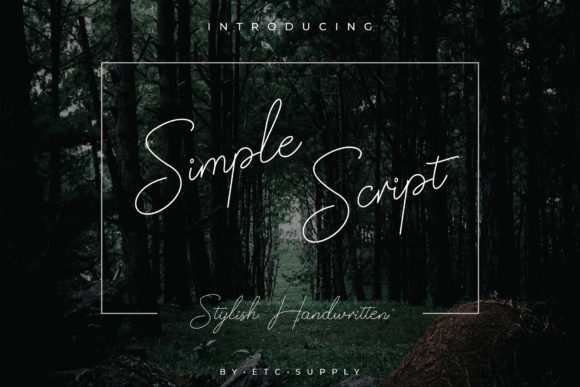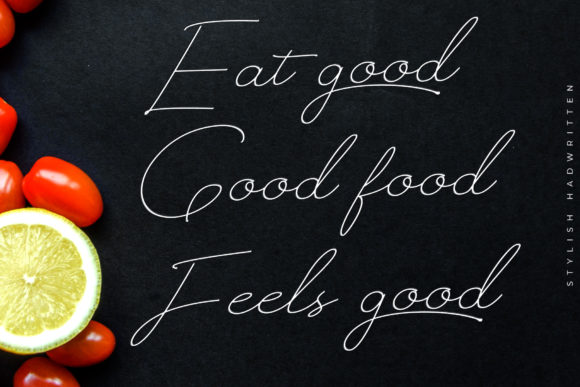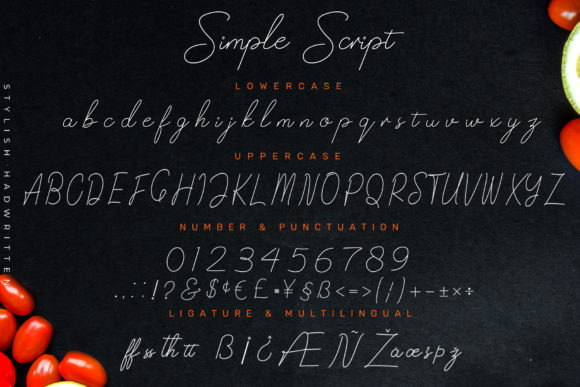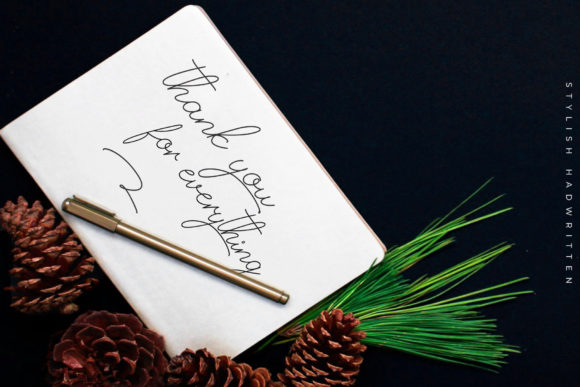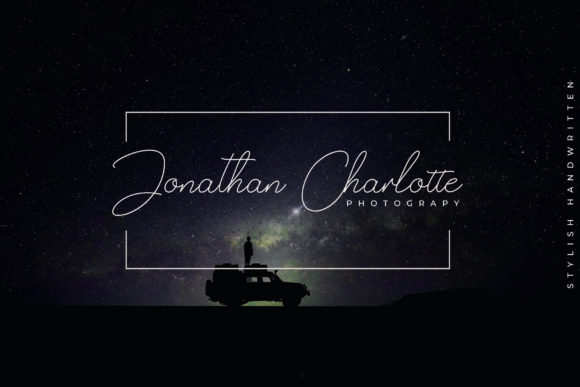
About Simple Script Font
Simple Script feels equally charming and elegant. This stunning handwritten font is a stylish homage to classic calligraphy.Whether you’re looking for fonts for Instagram or calligraphy scripts for DIY projects, Simple Script will turn any creative idea into a true piece of art!